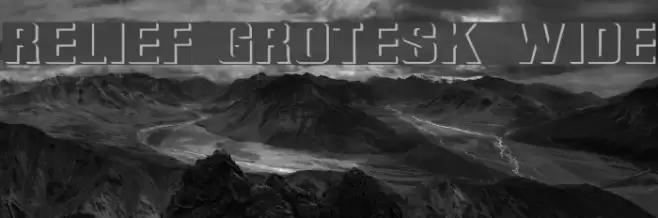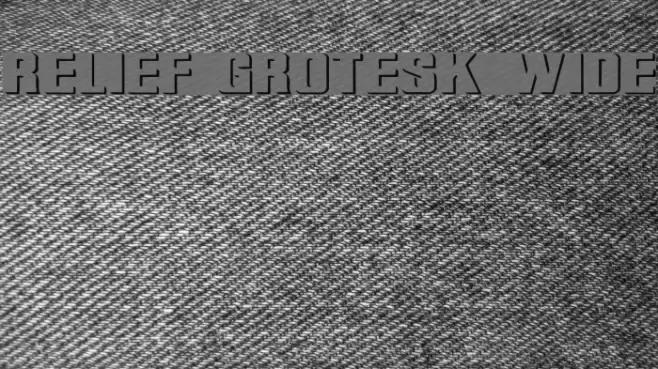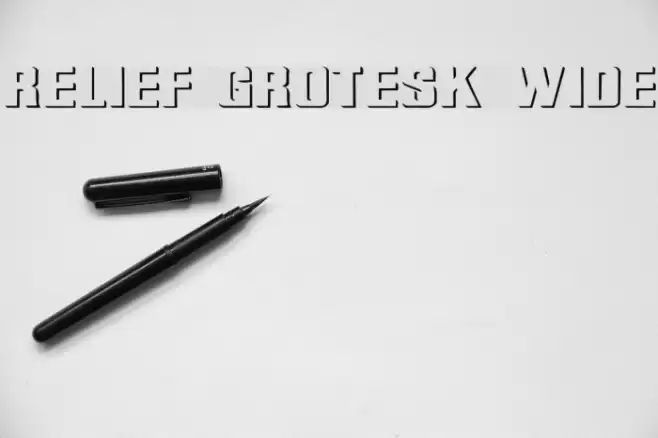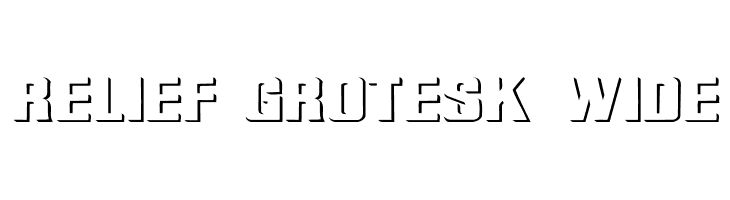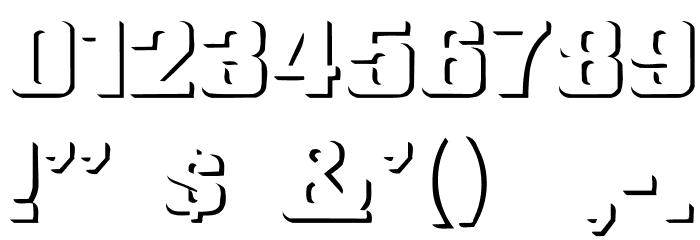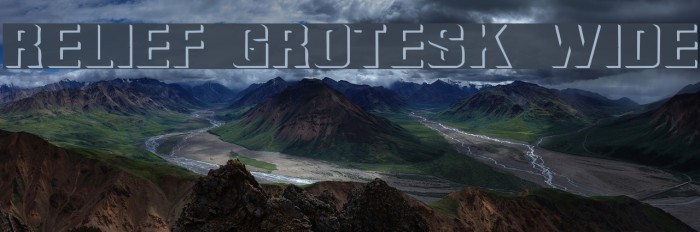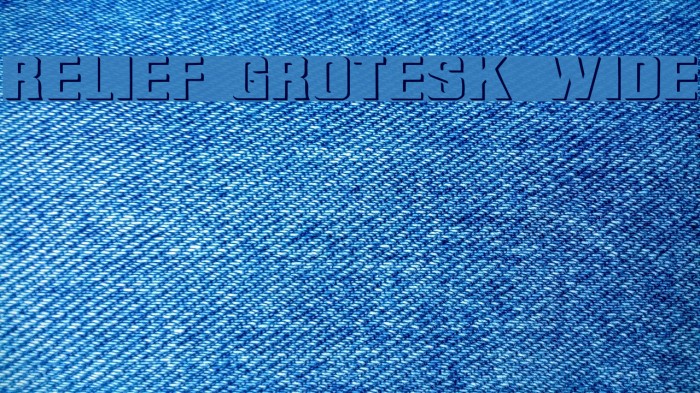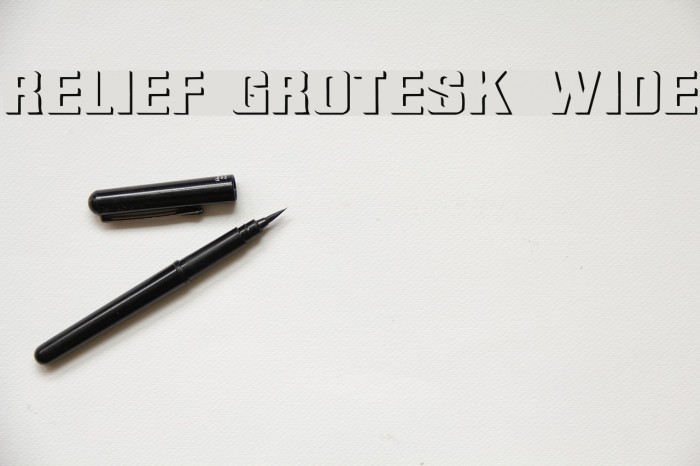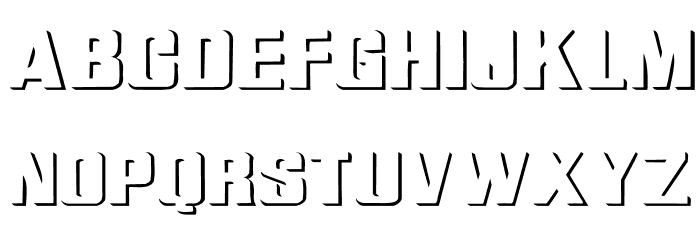
Relief Grotesk Wide
This font features a bold, wide design with a distinctive stencil-like appearance. The characters are uppercase and lowercase, with numerals and a selection of special characters. The cut-out sections within each letter give it a unique, industrial feel, reminiscent of signage or military stencils. The strokes are consistent in width, providing a uniform look across all characters. The spacing between characters is normal, ensuring readability while maintaining the bold impact of the design. This font's style is both modern and utilitarian, making it suitable for a variety of creative applications.
A bold, wide stencil-style font with a modern, industrial look.
- Proposed Projects: Ideal for branding, signage, posters, and any project requiring a bold, impactful typeface.
- Width: Expanded
- Use Case: Headlines, Logos, Posters